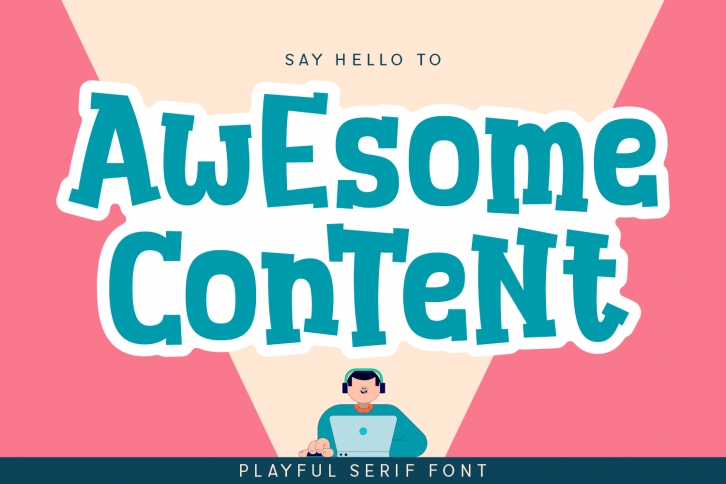
Break the rules with Awesome Content – a quirky, bold display font!
This incredible, bold typeface will go perfectly on your next album art, poster or business card.